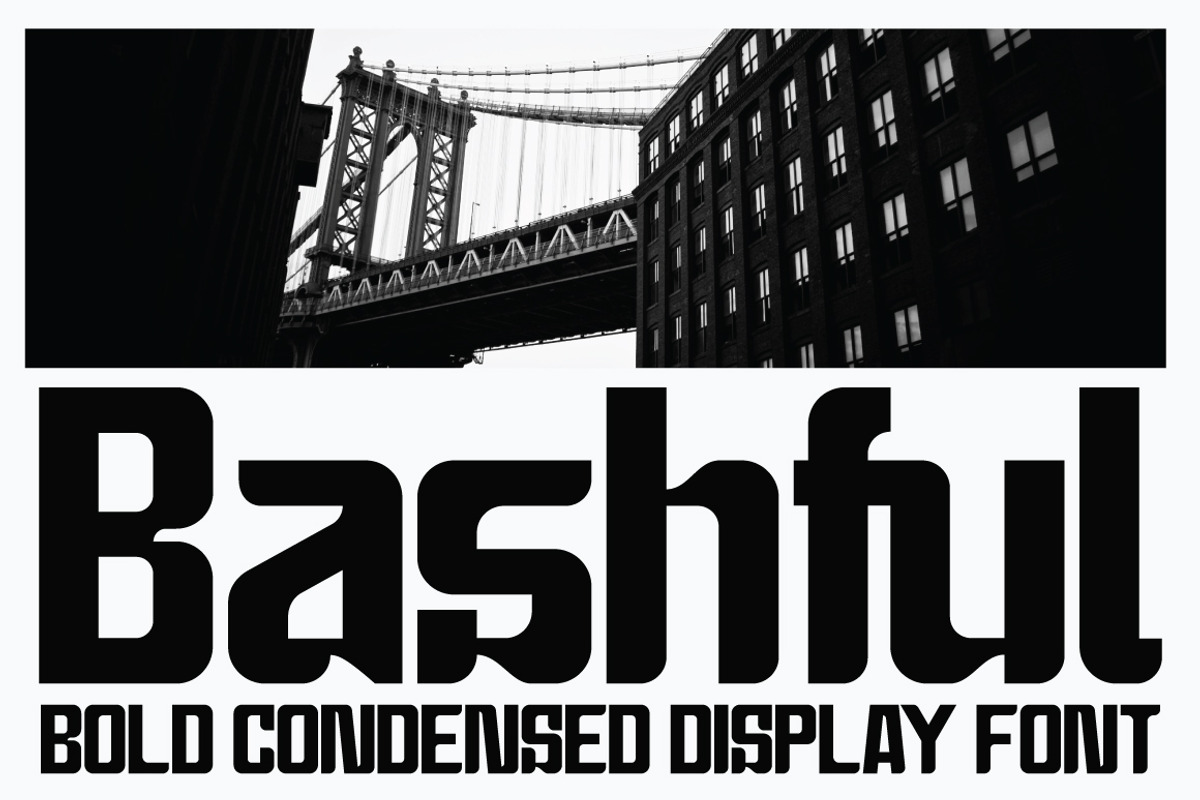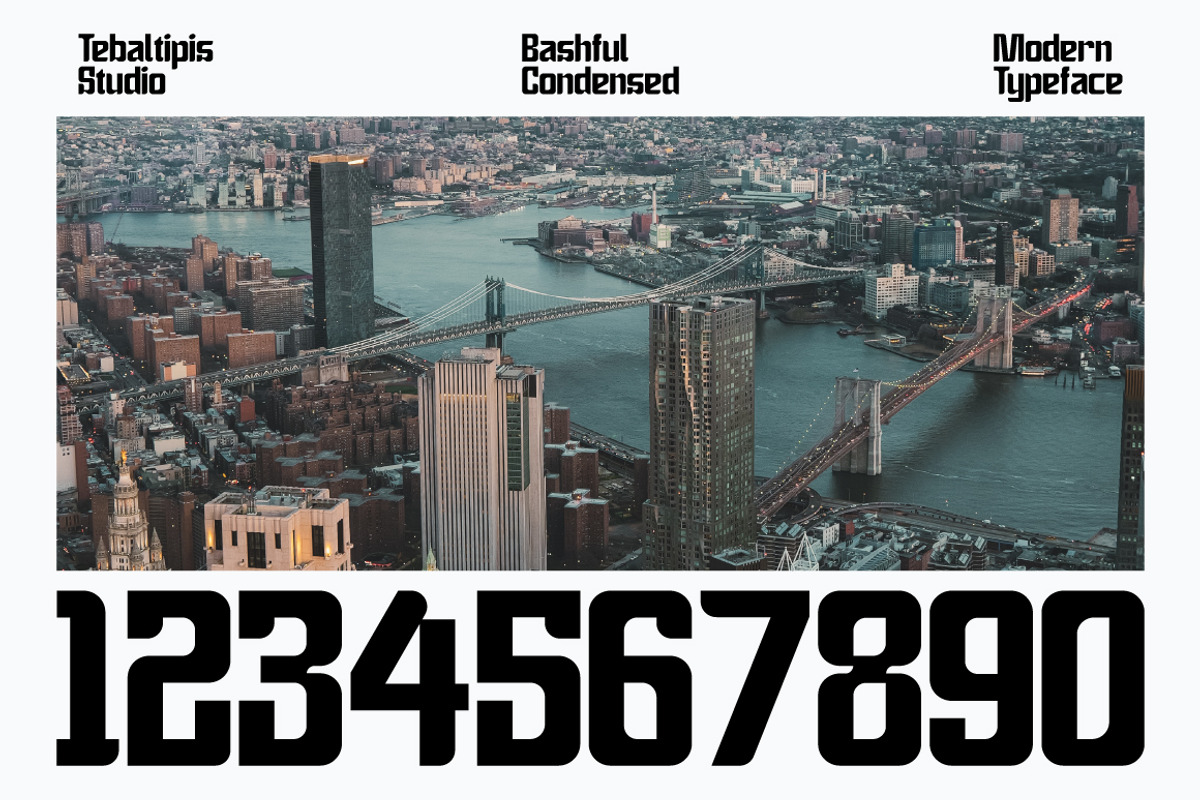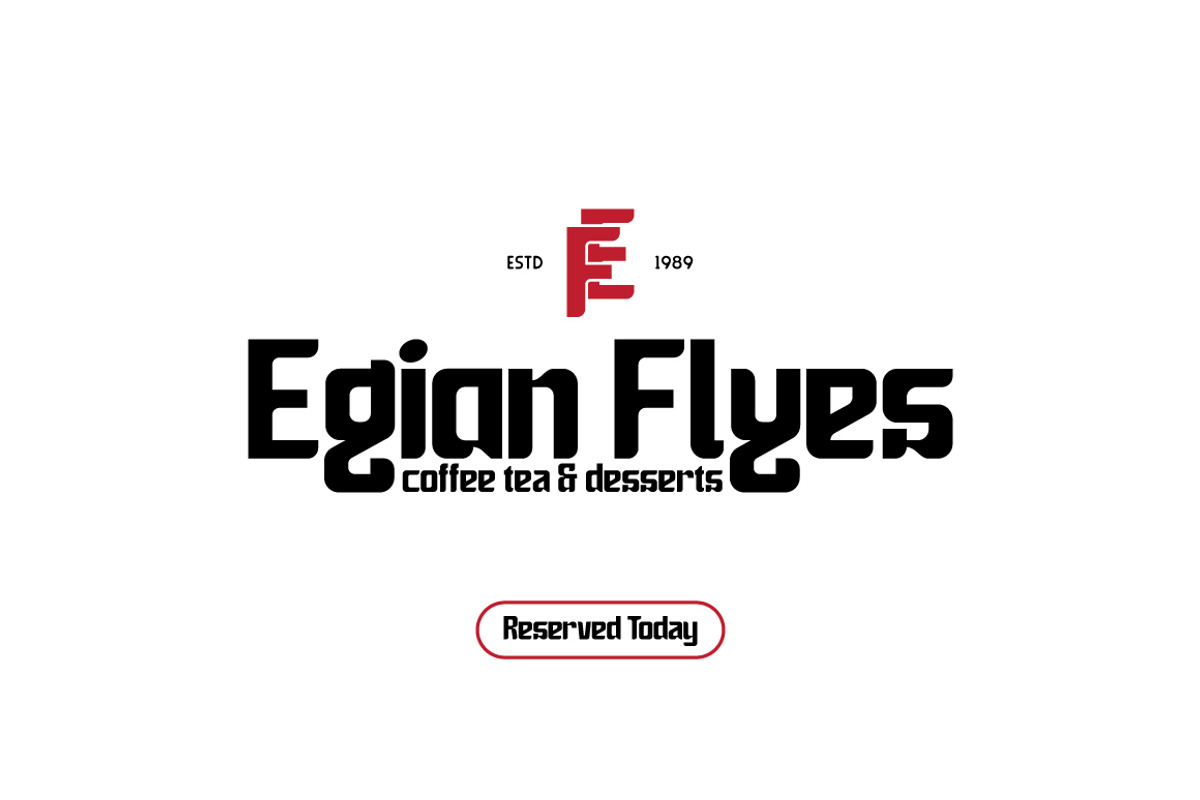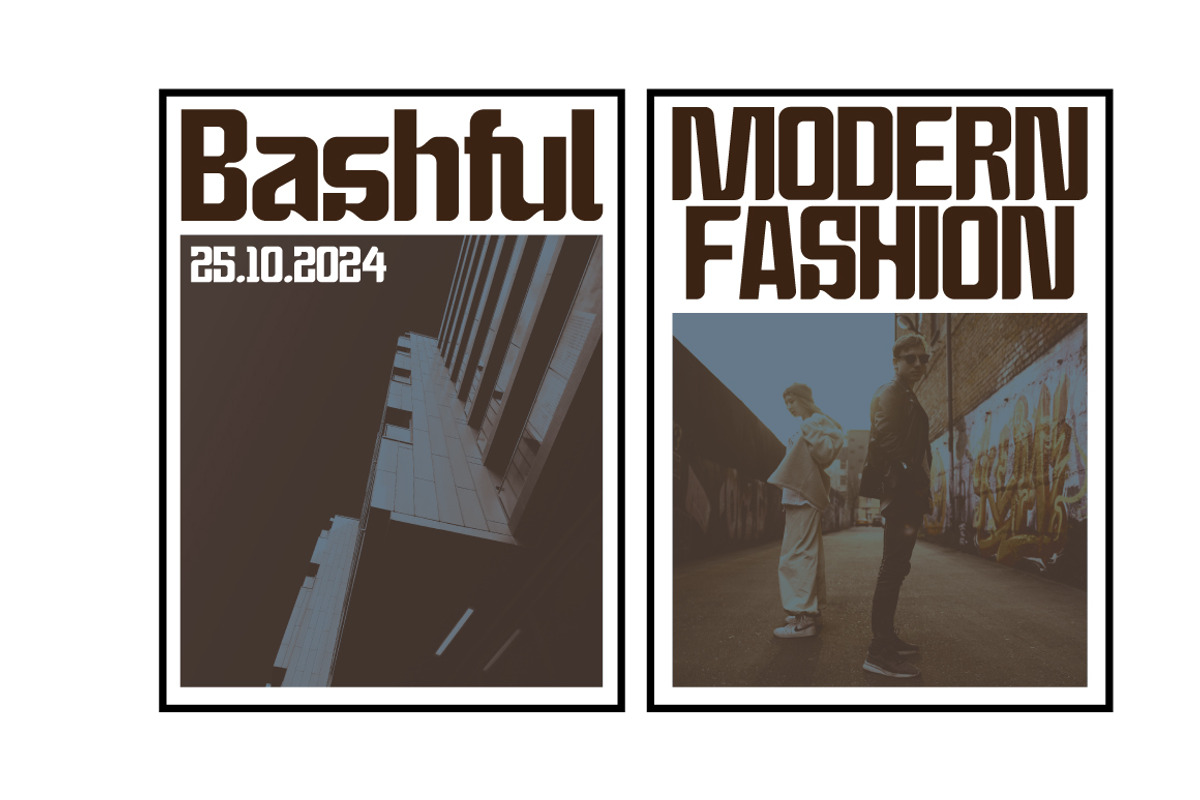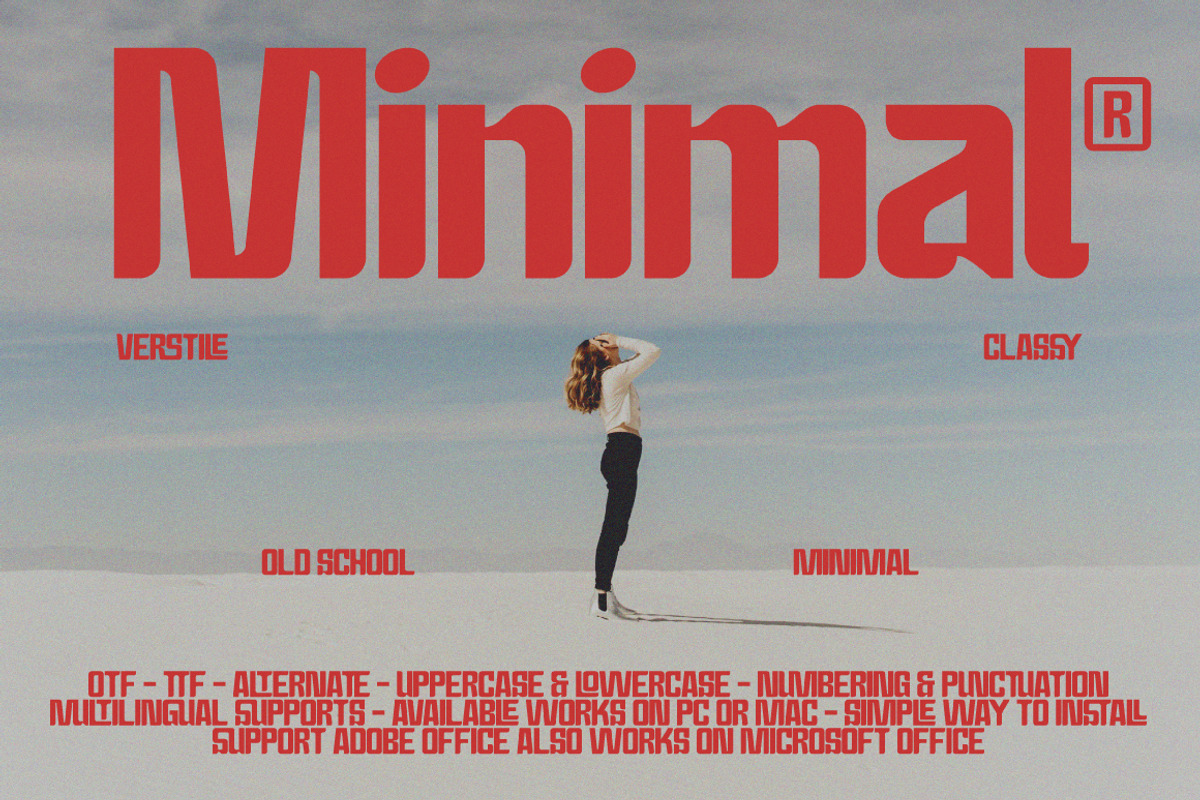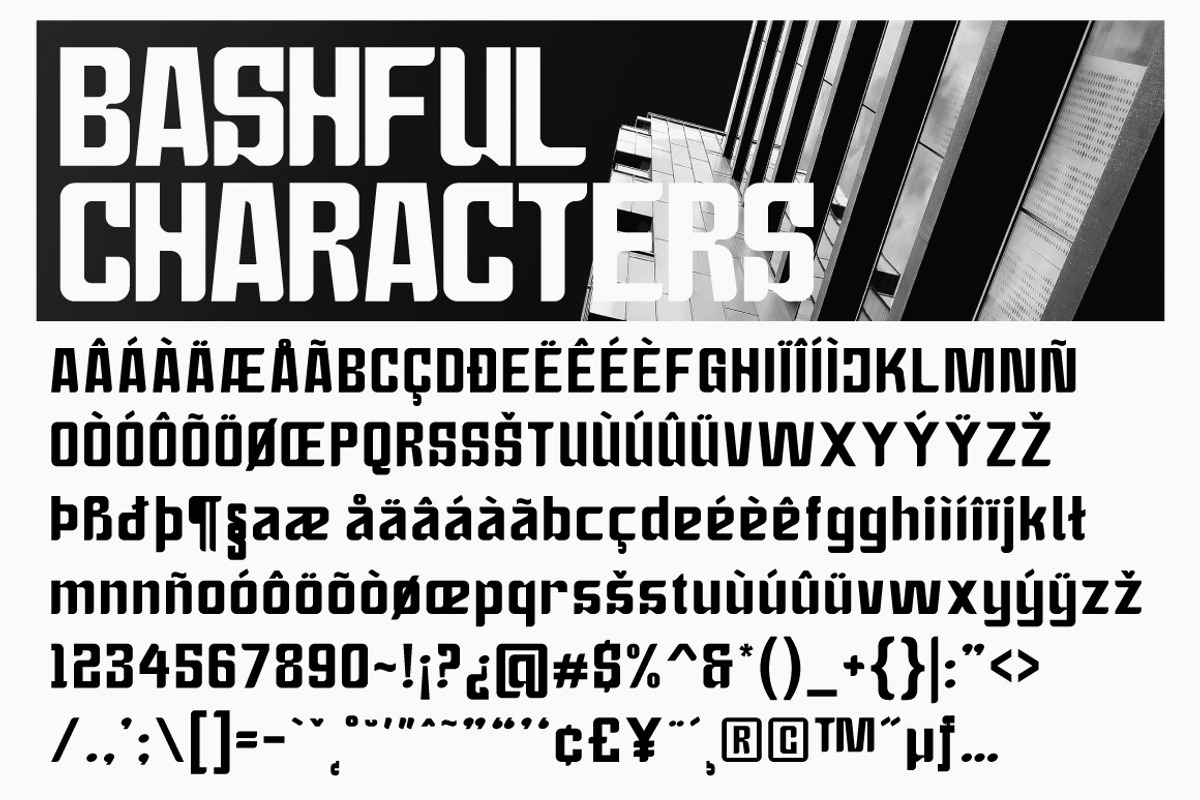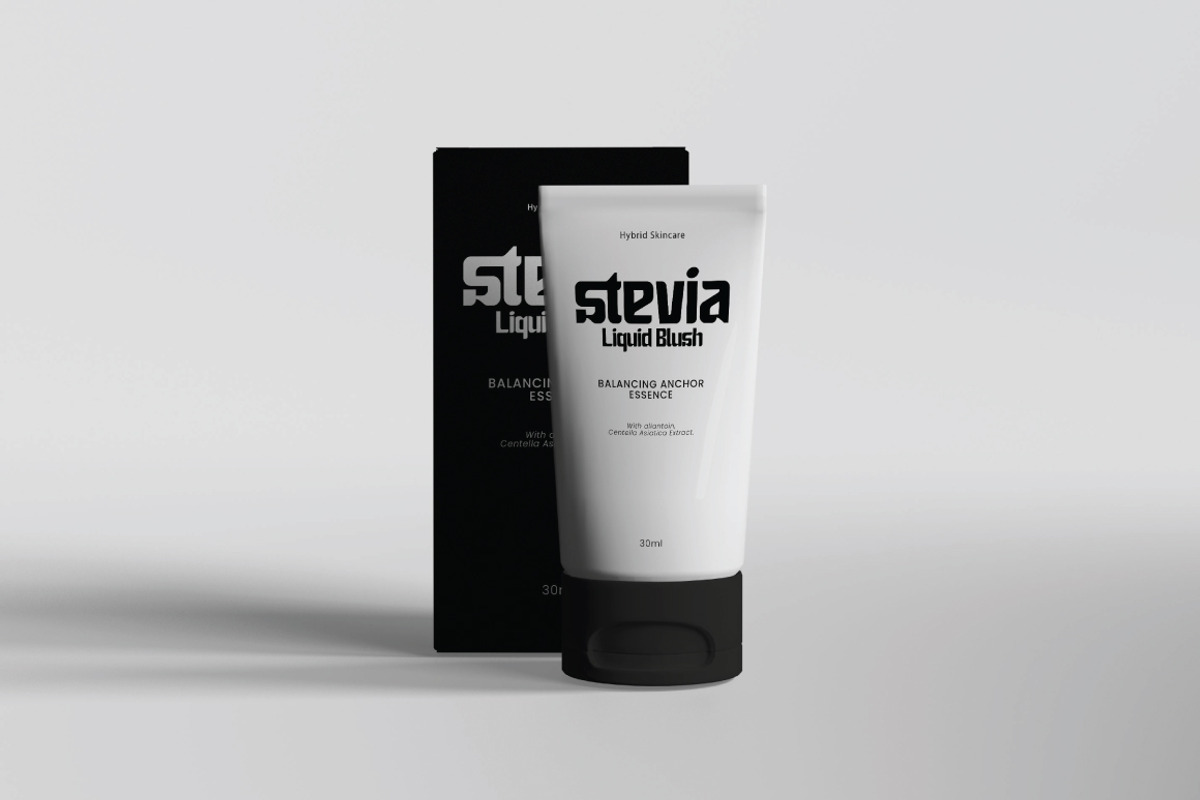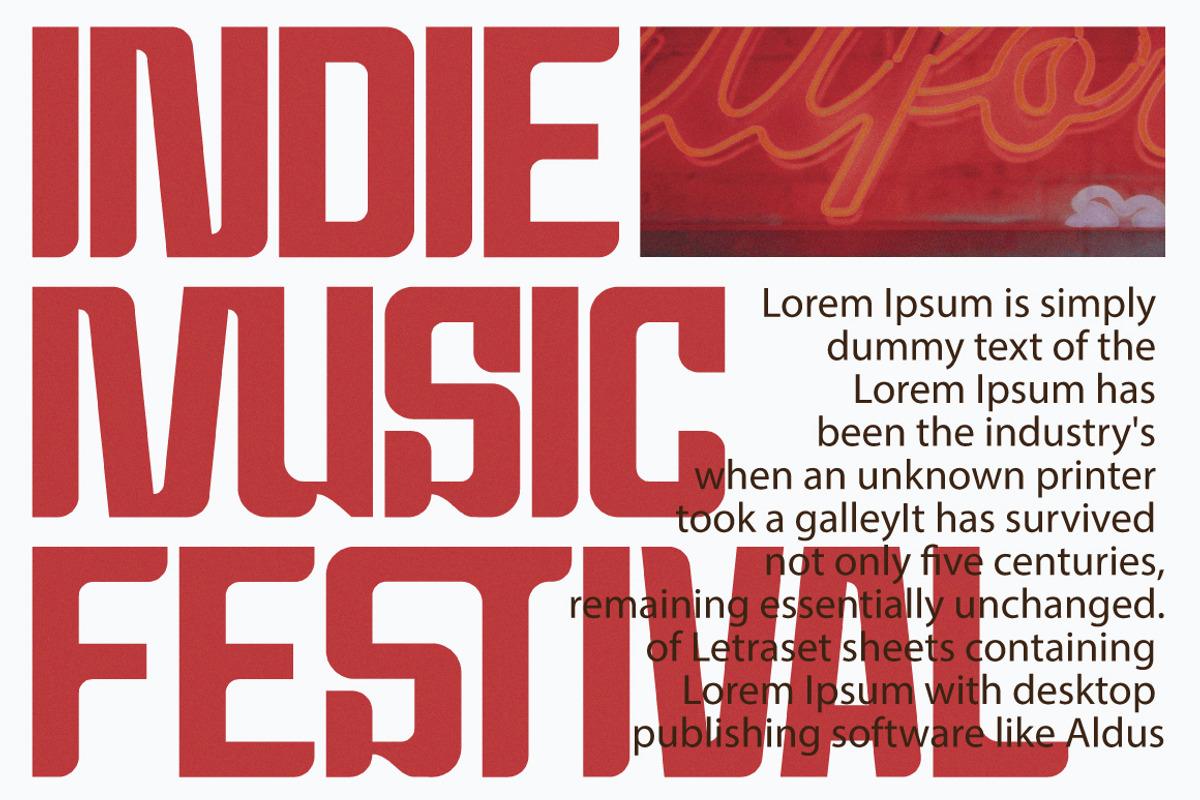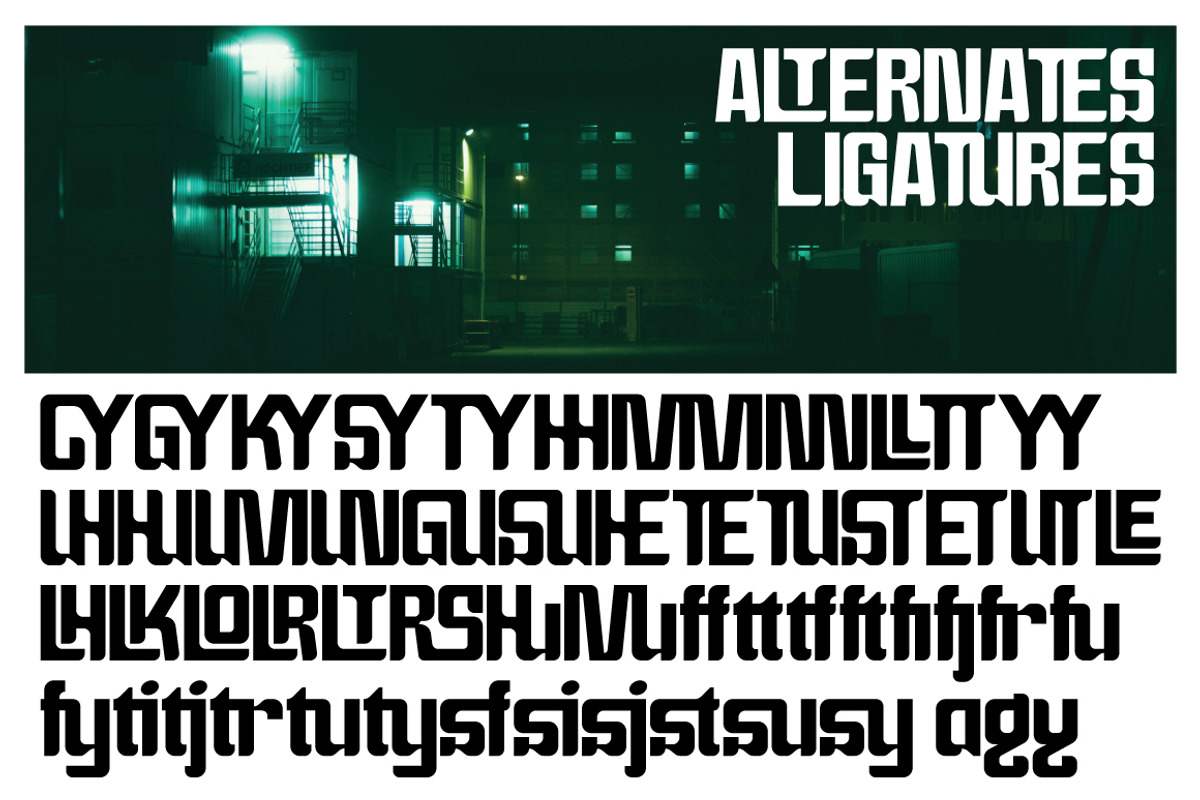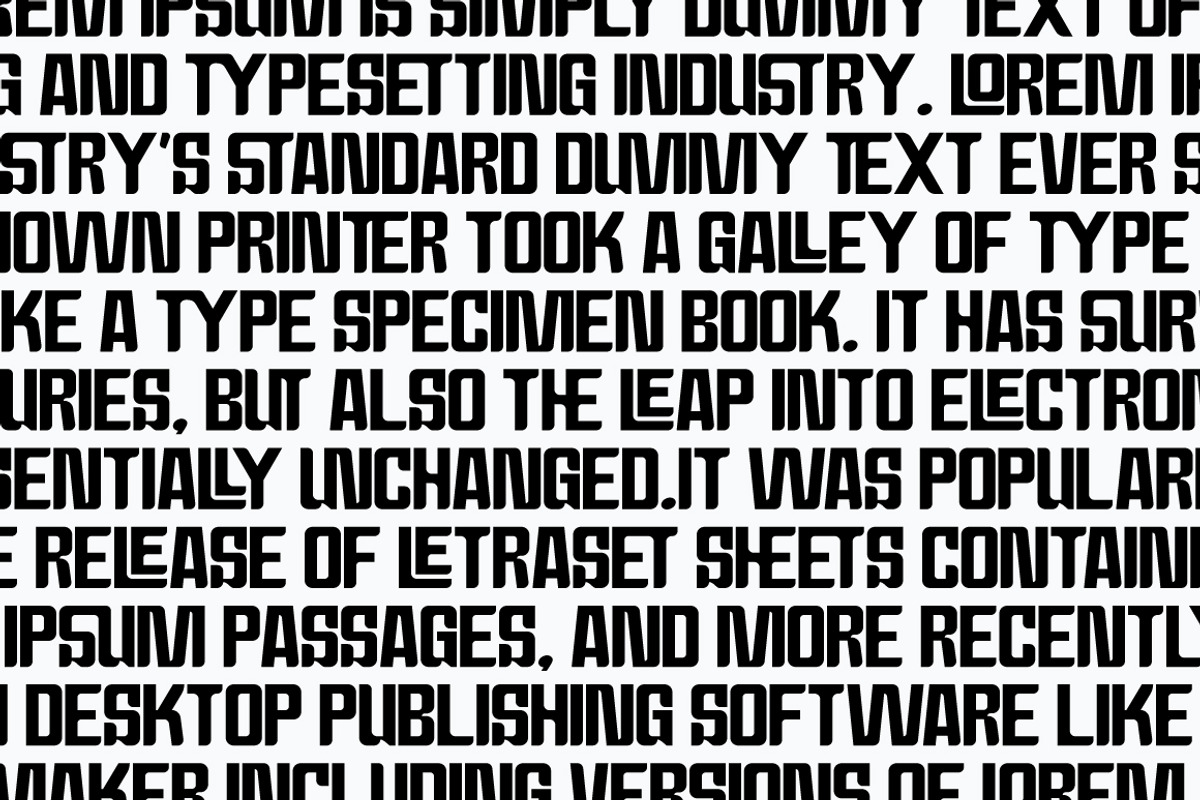
Bashful - Sans Condensed Font
Bashful Condensed Display - A Condensed Bold Display Typeface
Bashful Condensed Display the perfect bold and narrow font for headlines and captivating displays. Ideal for designers seeking a modern and impactful look with retro and vintage vibes. Transform your projects with this regular and slant, condensed typeface that demands attention.
Bashful Condensed Display Font come with 250+ glyphs. The alternative characters were divided into several Open Type features such as Swash, Stylistic Sets, Stylistic Alternates, and Ligature. The Open Type features can be accessed by using Open Type savvy programs such as Adobe Illustrator, Adobe InDesign, Adobe Photoshop Corel Draw X version, And Microsoft Word. And this Font has given PUA unicode (specially coded fonts). so that all the alternate characters can easily be accessed in full by a craftsman or designer.
Bashful Condensed Display :
Uppercase & Lowercase International Languange & Symbols Support Punctuation & Number PUA Unicode Range Standard Ligatures Discretionary Ligatures Stylistic Alternates Stylistic Set.